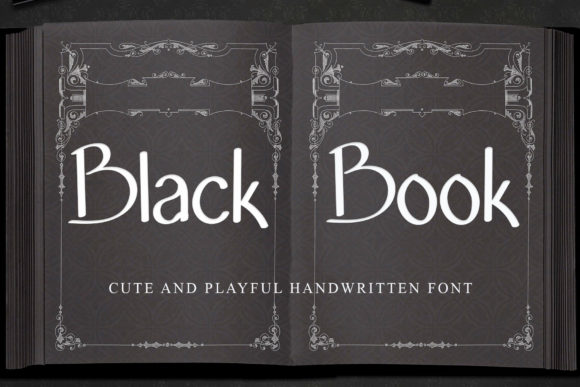
The Magic of Black Book Font: A Designer’s New Best Friend
I’ll never forget the time I was working on a logo design project for a children’s bookstore. I had a clear vision of what I wanted to create, but somehow, the font just wasn’t cooperating. It was either too serious, too dull, or just plain boring. That’s when I stumbled upon the Black Book font, and it was love at first sight! ✨ This simple, cute, and playful display font instantly brought my design to life, and I knew I had found a new favorite.
What I Love About Black Book Font
- ✅ Playful yet professional: Black Book font strikes the perfect balance between fun and sophistication, making it ideal for a wide range of design projects.
- ✨ Ease of use: This font is incredibly easy to work with, even for those who are new to design or typography.
- 🎨 Versatility: From logos and branding to quotes and social media graphics, Black Book font can handle it all.
- 👀 Attention-grabbing: Let’s face it – this font is designed to grab attention, and it does so with style!
While Black Book font is an excellent choice for many projects, there are a few things to keep in mind:
- ⚠️ Legibility at small sizes: Like many display fonts, Black Book may not be the best choice for body text or small font sizes.
- 🤔 Limited formal applications: Due to its playful nature, Black Book font might not be suitable for very formal or corporate projects.
The Story Behind Black Book Font
Black Book font was designed with the goal of creating a simple, yet playful display font that could bring a touch of whimsy to any design project. The designer, inspired by classic children’s books and modern typography trends, crafted a font that is both easy to read and visually appealing.
Q: What type of projects is Black Book font best suited for?
A: Black Book font is perfect for creating eye-catching logos, branding, quotes, and social media graphics.
Q: Is Black Book font available in different weights or styles?
A: Currently, Black Book font is available in a single weight. However, the font’s simplicity and versatility make it easy to use in a variety of design contexts.